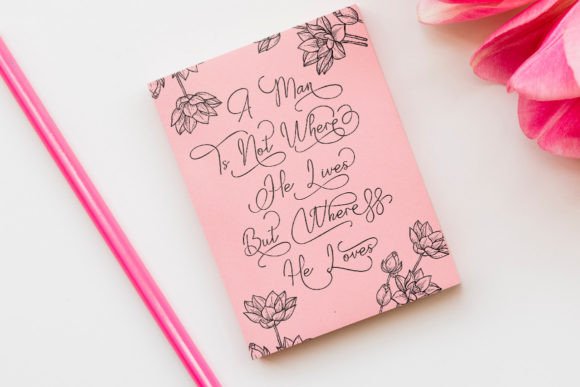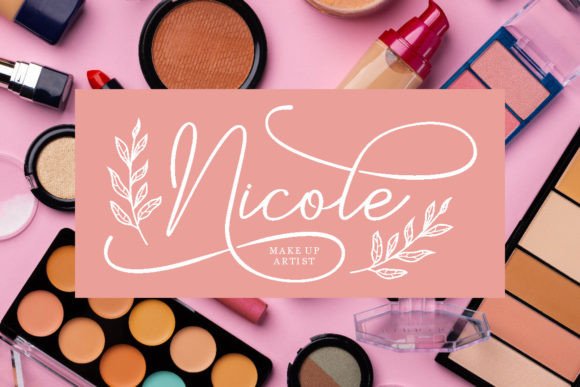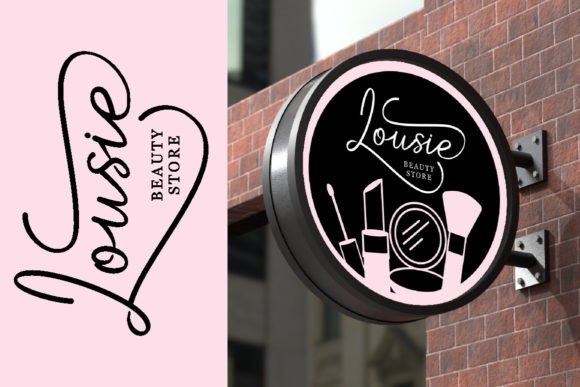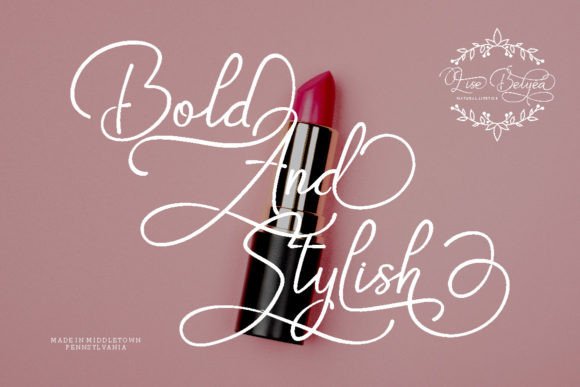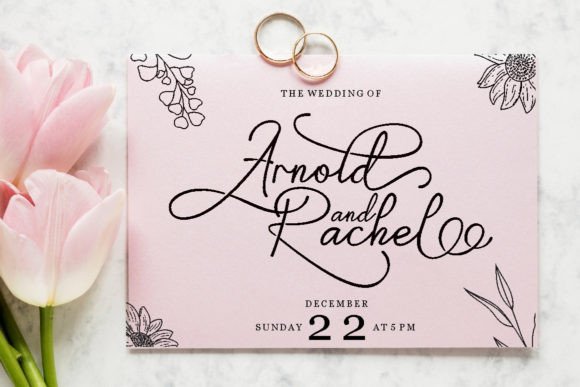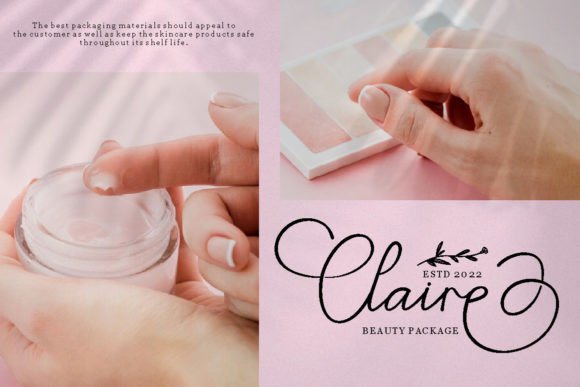
Bright Bridge Font: Elevate Your Designs with Elegance and Sophistication
Are you searching for a font that embodies elegance, sophistication, and romance? Look no further than the Bright Bridge Font, a beautiful script font that is sure to take your design projects to the next level. In this article, we’ll delve into the world of Bright Bridge, exploring its features, benefits, and uses, as well as provide tips on how to make the most of this stunning font.
Introducing Bright Bridge Font
Bright Bridge, also known as Bright Bride, is a gorgeous script font that is designed to add a touch of glamour to any design project. Its clean lines, flowing curves, and delicate strokes create a sense of grace and charm, making it perfect for a wide range of applications, from wedding invitations and branding projects to social media posts and more.
Key Features of Bright Bridge Font
- Elegant and Sophisticated: Bright Bridge boasts a refined and luxurious feel, making it ideal for designs that require a high level of sophistication.
- Clean Lines and Flowing Curves: The font’s sleek lines and smooth curves create a beautiful, fluid look that is sure to capture the eye of any viewer.
- Delicate Strokes and Intricate Details: Bright Bridge features delicate strokes and intricate details that add a level of elegance and refinement to any design.
- Versatile: This font is perfect for a wide range of projects, from wedding invitations and branding projects to social media posts and more.
Benefits of Using Bright Bridge Font
So, why choose Bright Bridge for your design projects? Here are just a few benefits of using this stunning font:
- Adds a Touch of Romance and Femininity: Bright Bridge is perfect for designs that require a romantic and feminine touch, such as wedding invitations, floral arrangements, and more.
- Elevates Your Designs: The font’s elegant and sophisticated feel is sure to elevate your designs, making them stand out from the crowd.
- Pairs Well with Other Design Elements: Bright Bridge pairs beautifully with soft pastels, classic black and white, and other design elements, creating a stunning contrast that will make your designs pop.
Uses for Bright Bridge Font
Bright Bridge is a versatile font that can be used for a wide range of projects, including:
- Wedding Invitations: Add a touch of elegance and romance to your wedding invitations with Bright Bridge.
- Branding Projects: Use Bright Bridge to create a sophisticated and luxurious brand identity for your business.
- Social Media Posts: Elevate your social media posts with Bright Bridge, making them stand out from the crowd.
- Stationery and Packaging: Use Bright Bridge to create beautiful stationery and packaging that reflects your brand’s personality.
Tips for Using Bright Bridge Font
Here are a few tips for making the most of Bright Bridge:
- Pair with Soft Pastels: Pair Bright Bridge with soft pastels to create a beautiful, feminine look.
- Use with Classic Black and White: Pair Bright Bridge with classic black and white to create a stunning contrast that will make your designs stand out.
- Experiment with Different Sizes: Experiment with different sizes to find the perfect fit for your design.